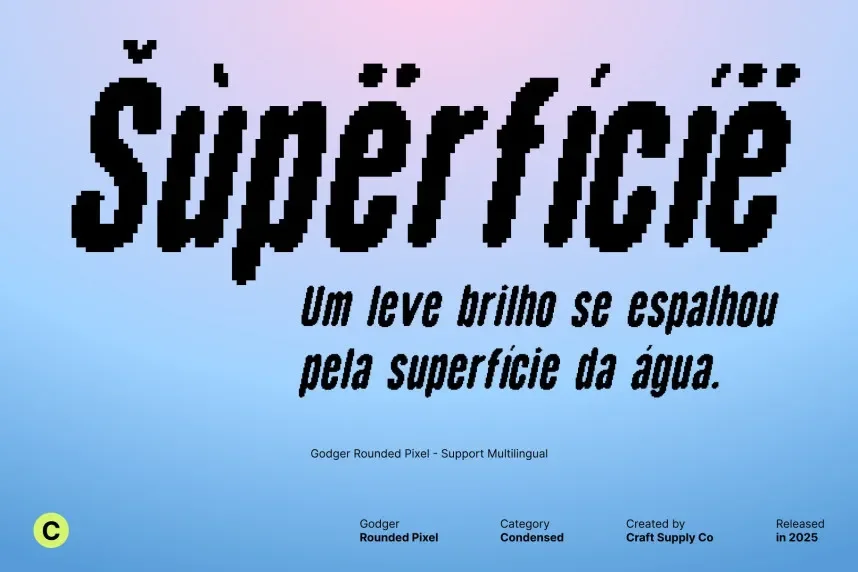
Godger Rounded Pixel Font combines the charm of pixel fonts with rounded edges for a softer, more approachable look. It’s perfect for digital and tech-themed projects that require a pixelated design but with a friendlier feel, such as apps, websites, and game interfaces.
Best used for logos, website text, and branding in the gaming industry, Godger Rounded Pixel Font pairs well with clean sans-serif fonts for easy readability. Available in TTF and OTF formats, it includes a commercial-use license. Always review the license for commercial use.